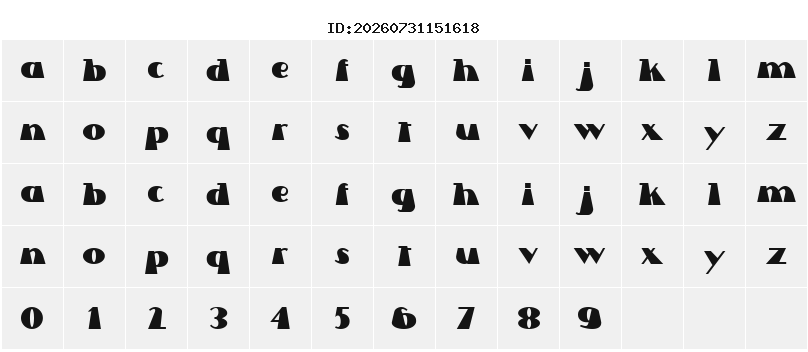
• Font Name: Lettre Dans Le Decor
• Copyright: Toto 2011 based on an alphabet from "La Lettre dans le lDecor et la Publicite Modernes"
About Lettre Dans Le Decor.ttf
Lettre Dans Le Decor.ttf is a modern, elegant sans-serif font designed for ultimate readability and visual harmony. Perfect for branding, headlines, web design, and print materials.